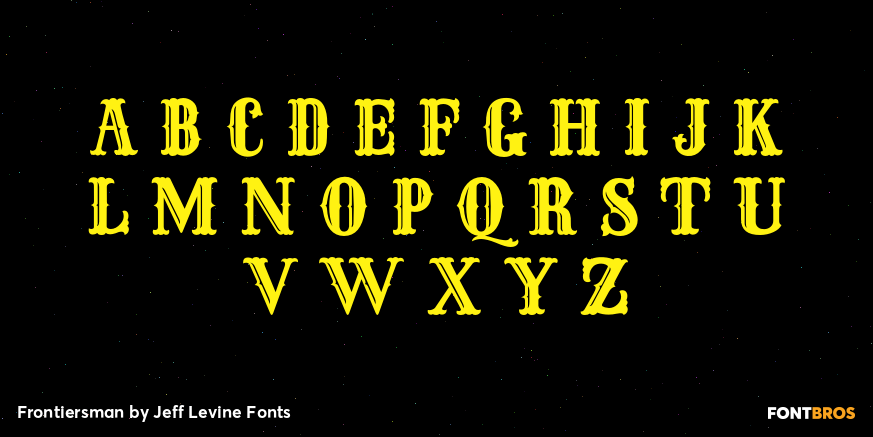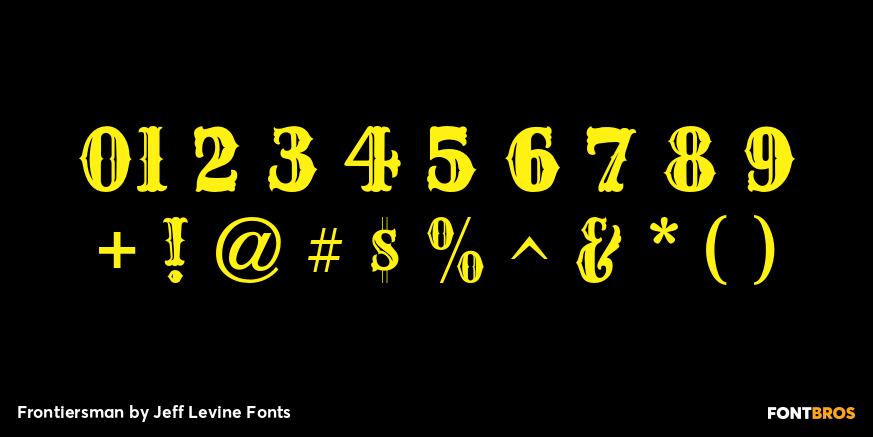
Frontiersman
The pages of the Speedball® Lettering Textbook have yielded a number of classic typefaces for digital designers. Frontiersman JNL and Frontiersman Black JNL have the wonderful hand-lettered look that adds just the right touch of nostalgia to any layout.